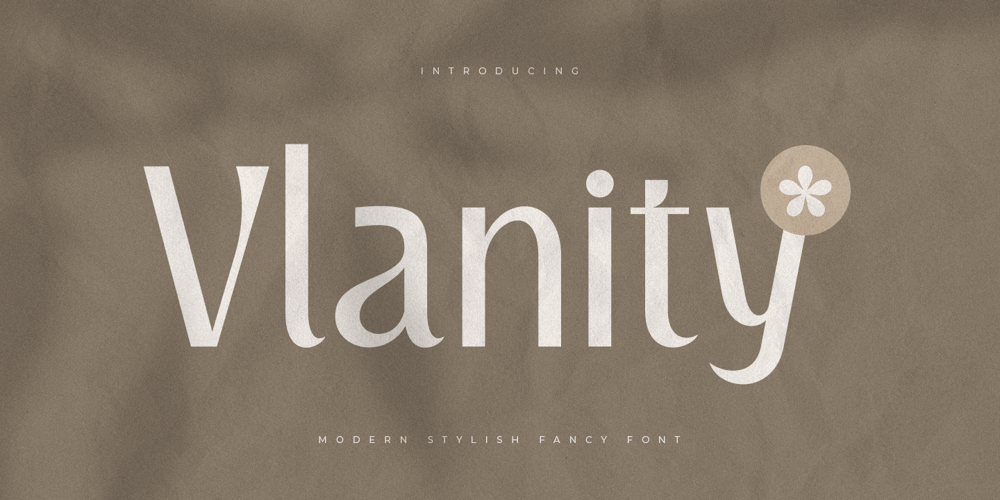
Vlanity
Vlanity font
Vlanity Font Family was designed by Zamroni Hamzah and published by Sensatype Studio. Vlanity contains 1 styles and family package options. A Modern Stylish Fancy Luxury font that we created special for elegant branding needs, with unique shape will be ready to add value of your brand. It so nice to leverage designer or product owner that need solutions to make their design look more stylish and modern.Vlanity Modern Stylish Fancy Luxury Font ready with: Unique Classy Characters Preview as a inspirations that you can do with Vlanity font Ready with Lowercase and Uppercase characters Wish you enjoy our font. 🙂